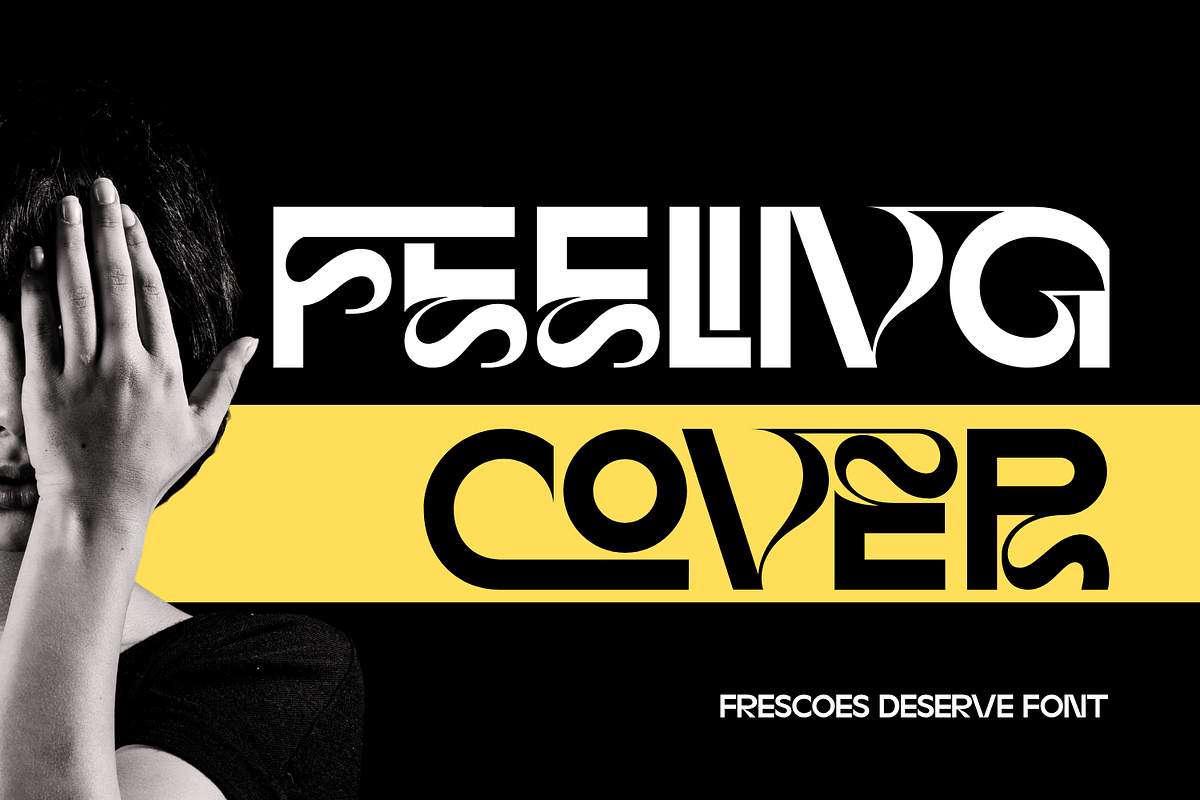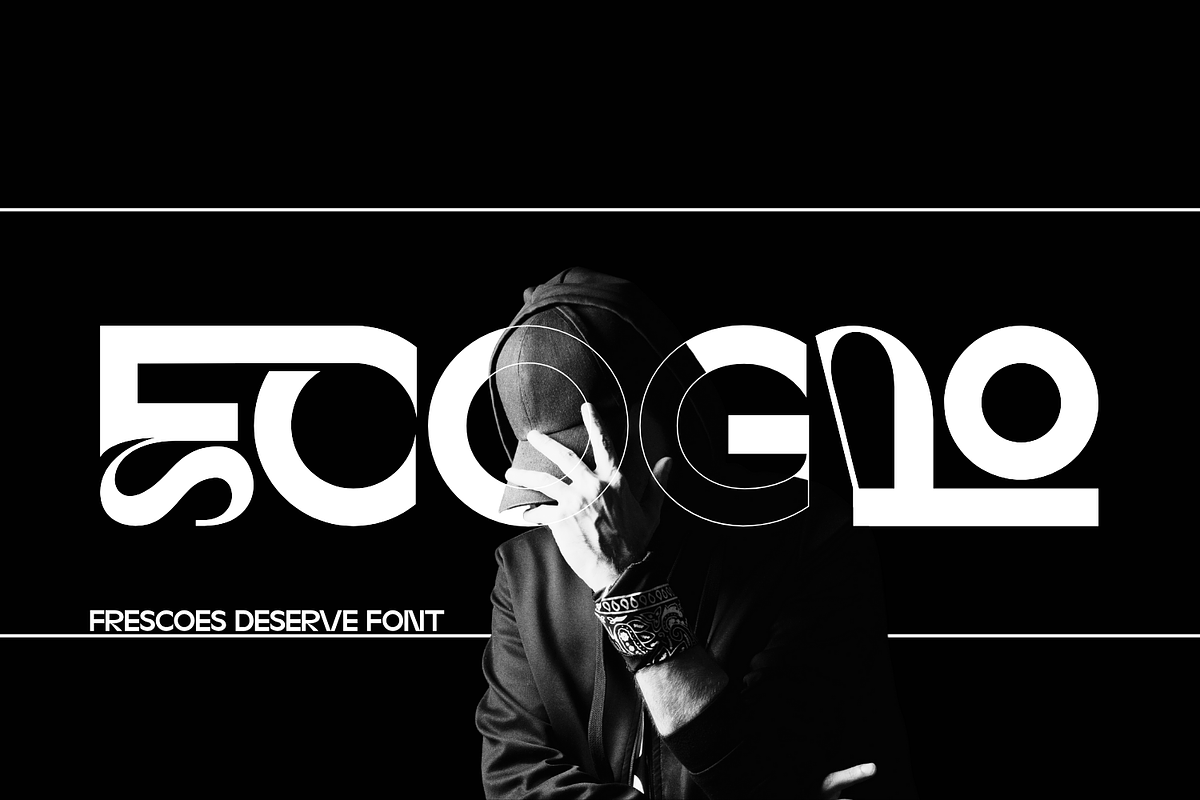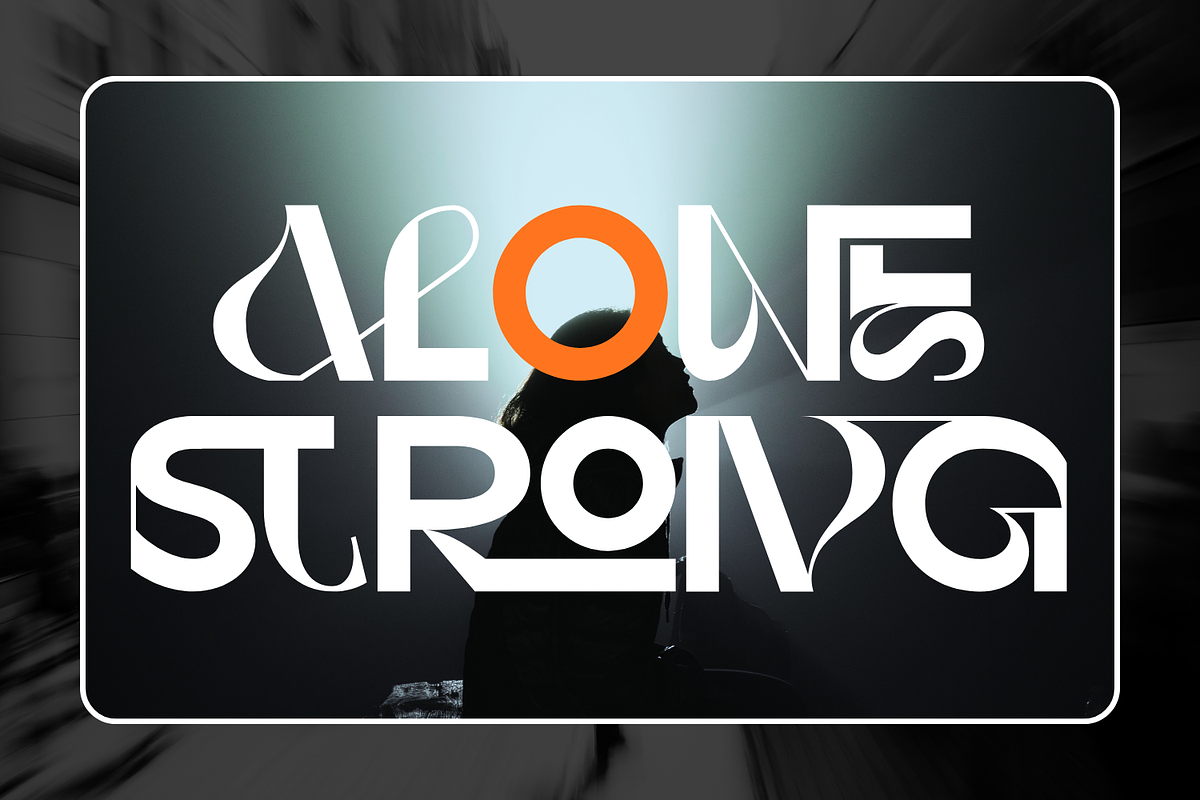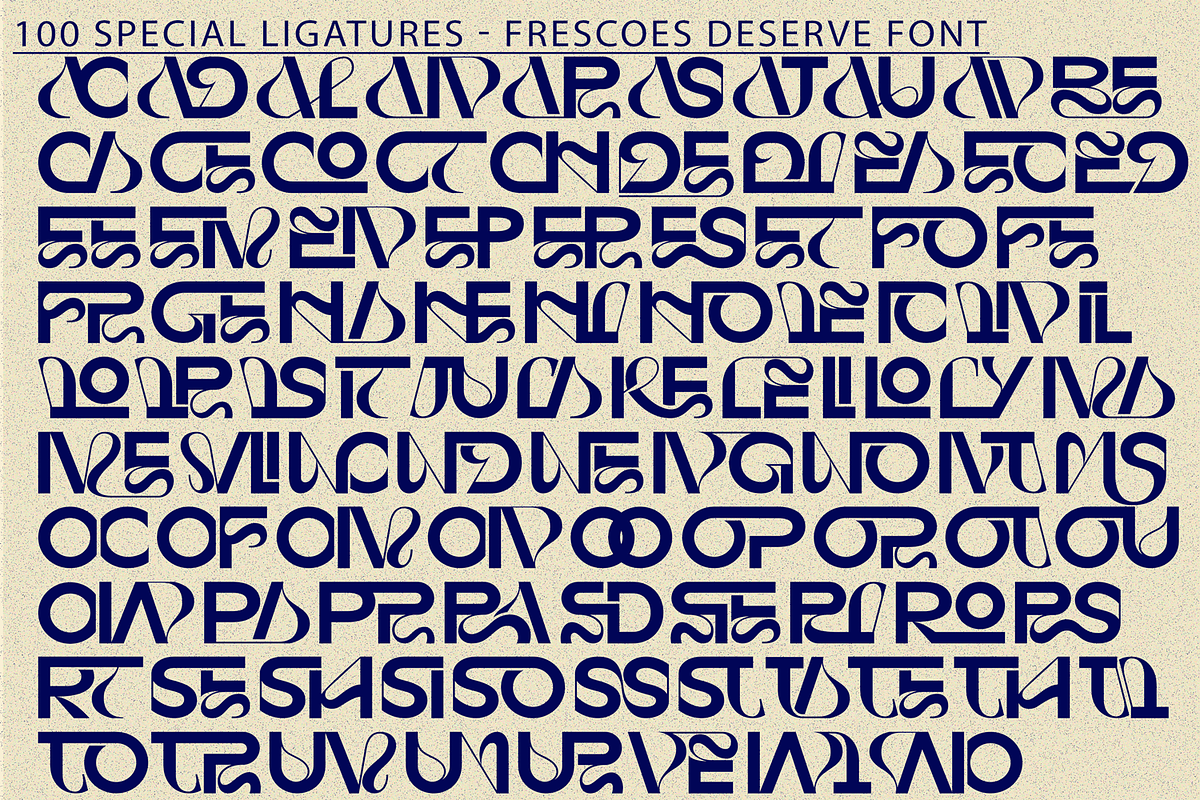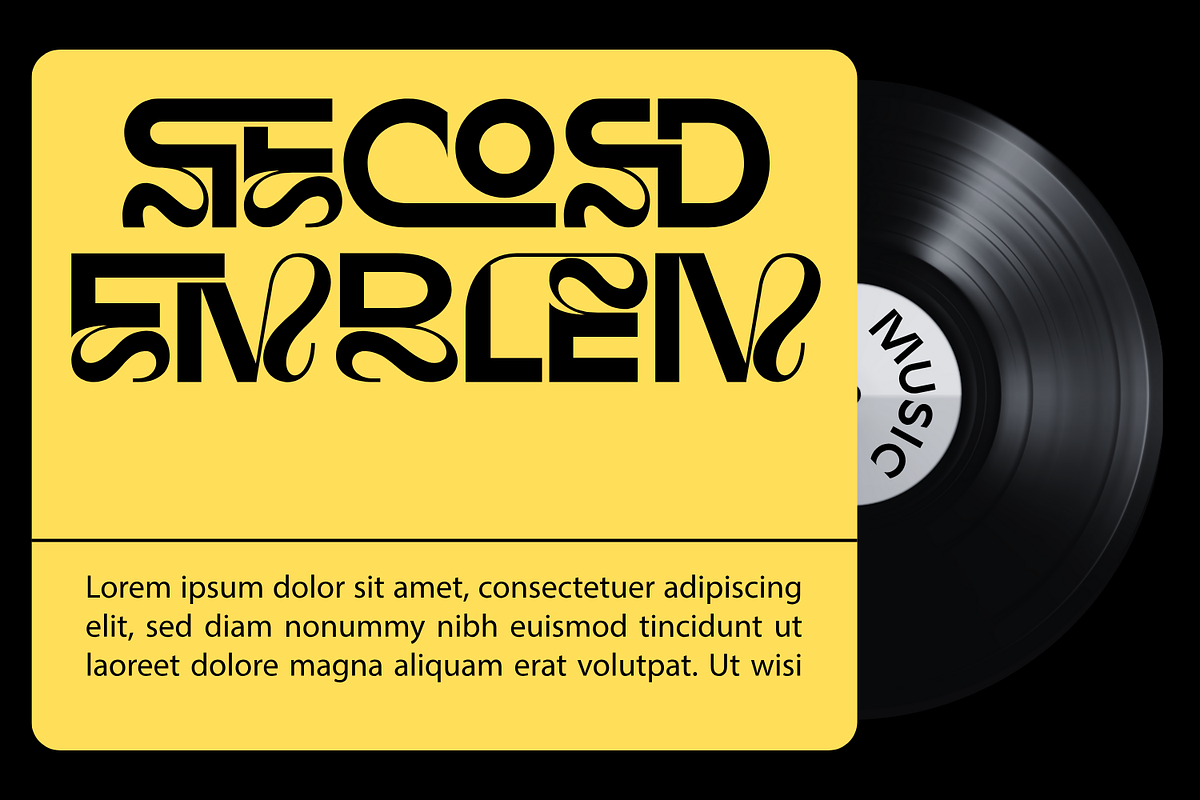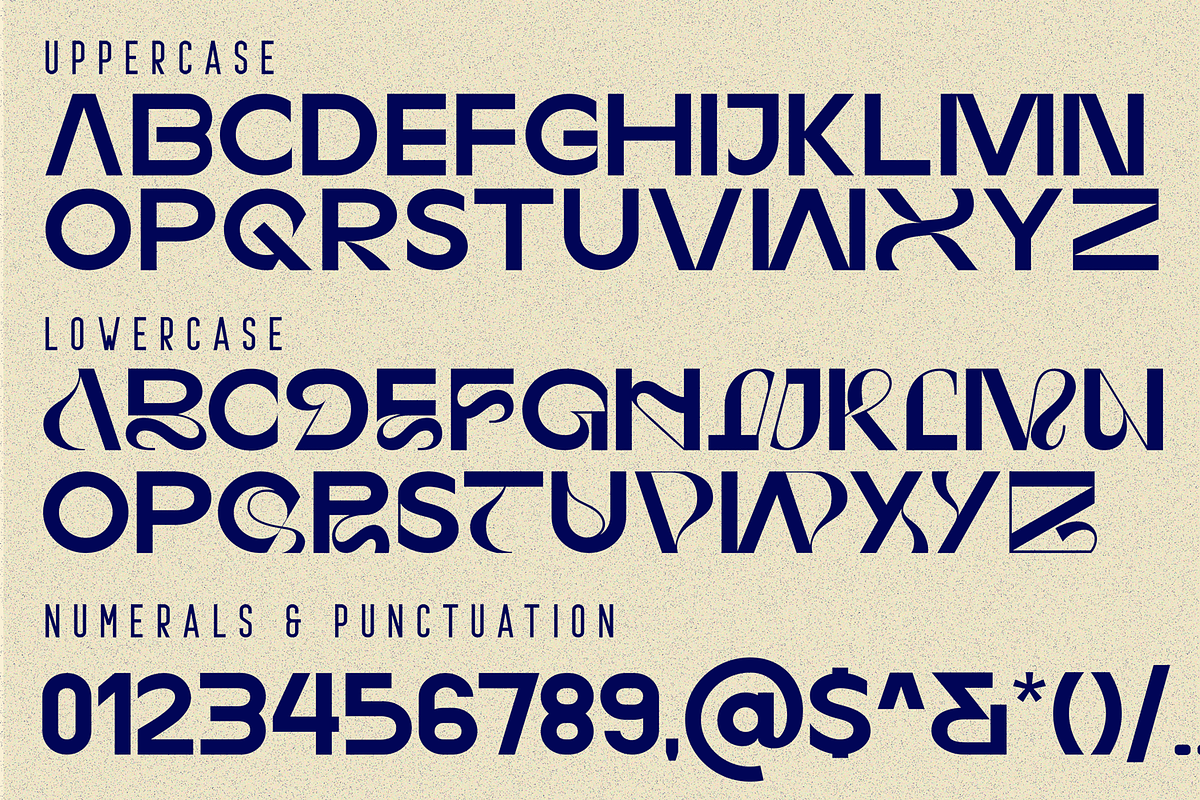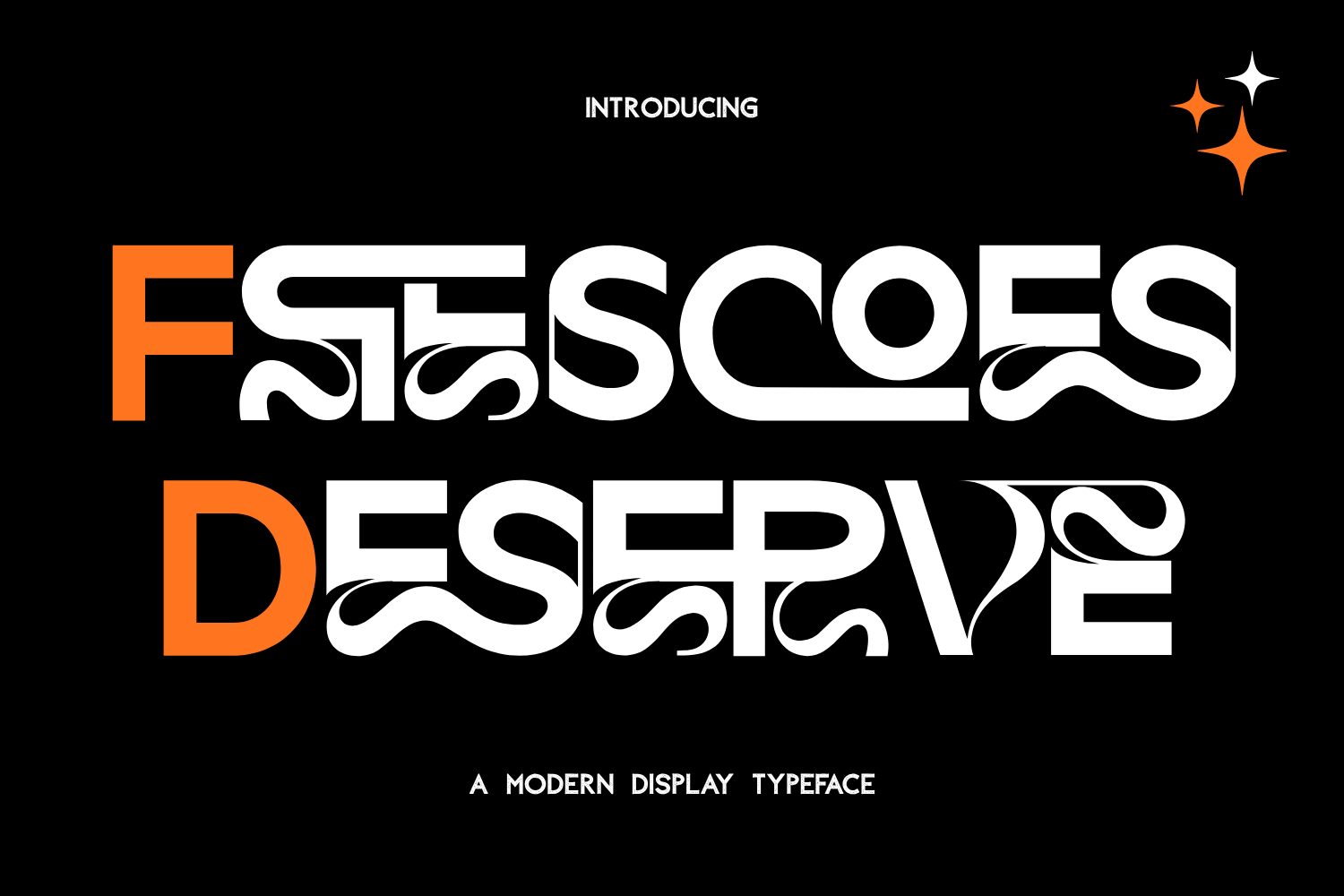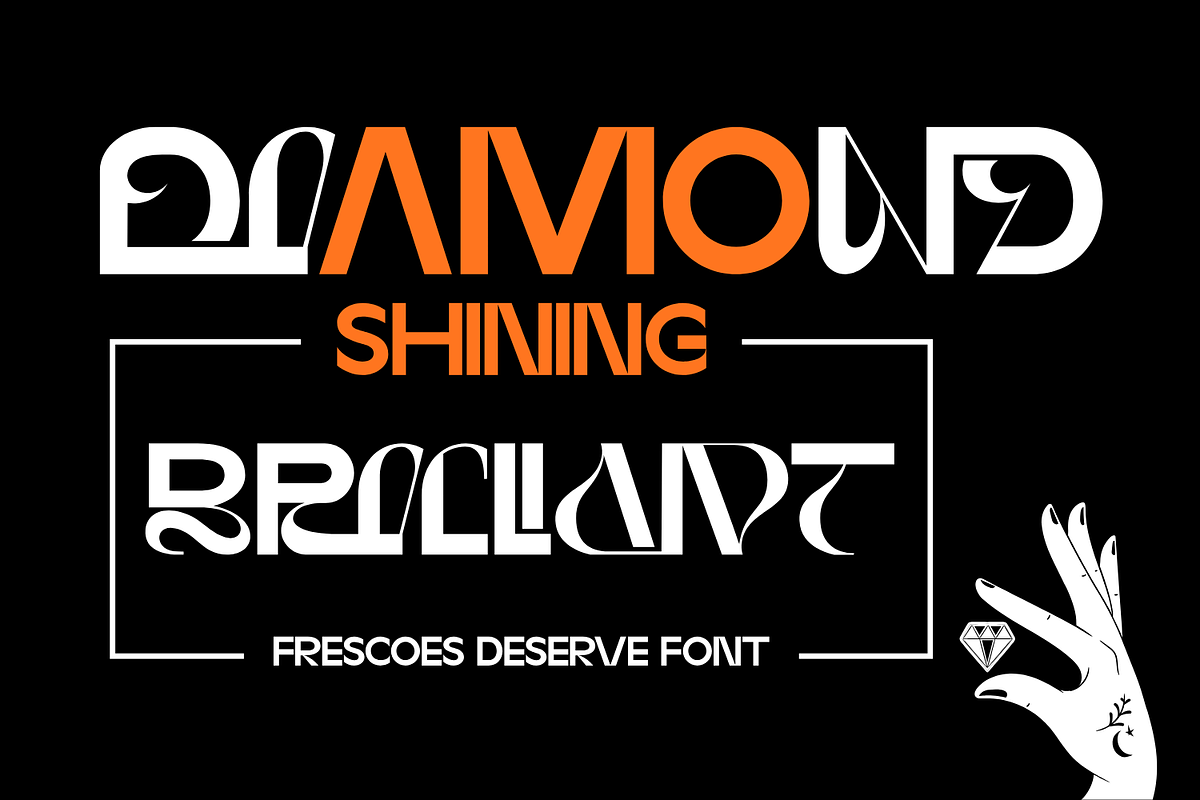
Frescoes Deserve - Geometric Font
Frescoes Deserve - Geometric Font is a modern experimental display typeface that blends fluid organic movement with bold geometric forms, resulting in a uniquely contemporary aesthetic. Each letter appears to flow like liquid, with wave-like extensions that create a sense of rhythm and motion, making the design both artistic and futuristic. Its structure features strong contrast between thick and thin strokes, yet maintains harmony through smooth curves and deliberate asymmetry. This dynamic quality gives it a distinctive character ideal for high-impact headlines, album covers, posters, branding, and fashion design.
- Uppercase & Lowercase Letters
- ~100 Special Ligatures
- Accented Characters for multilingual support
About 100 ligatures combined with Stylistic Alternates Font:
ac ad al an ar as at au av be ca ce ch co ct de di ea ec ed ee el em en ep er es et fe fo fr ge ha he hi ho ie ic il in io ir is it ju ke la le li ll lo ly ma me mi nc nd ne ng no nt ns oc of om on oo op or ot ou ow pa pr ra rd re ri ro rs rt se sh si so ss st ta te th ti to tr tt um un ur ve wi wo